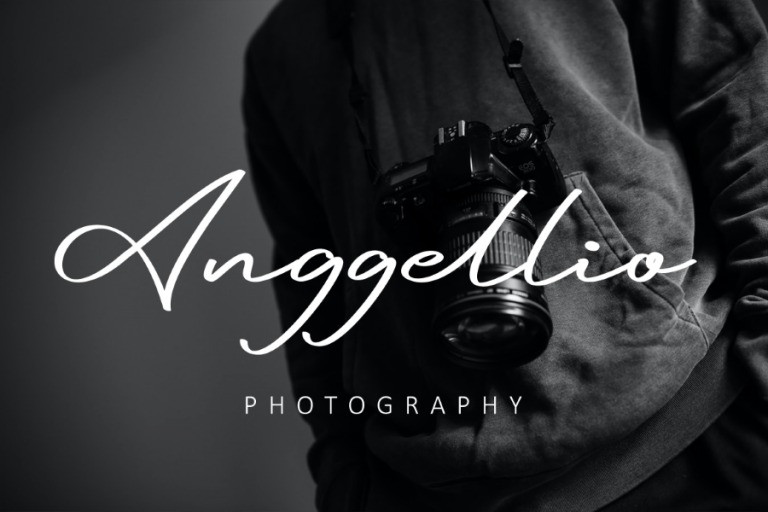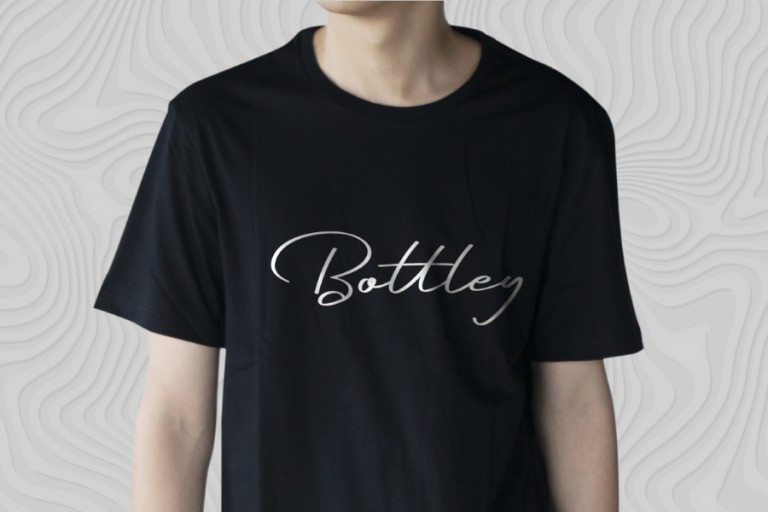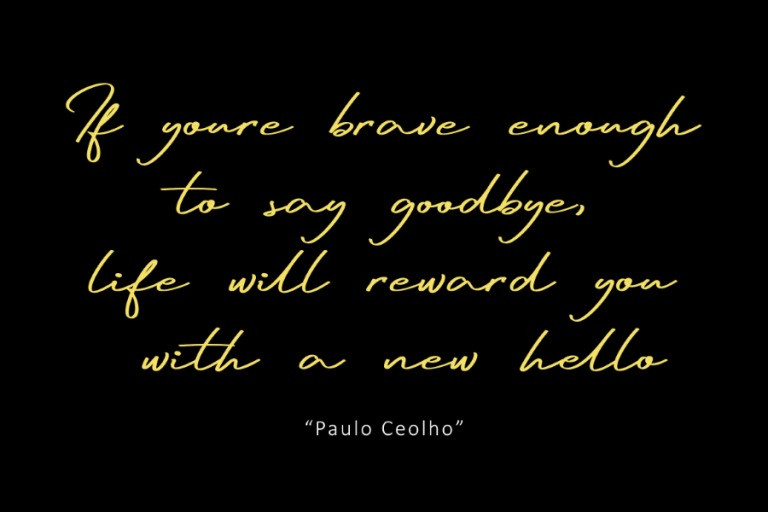
Conellista Signature Font
Conellista Signature Font is an elegant script font with a sophisticated signature style. Featuring unique character shapes, this font adds a refined and professional touch to your designs. Perfect for logos, branding, wedding invitations, and other creative projects, Conellista enhances your visual presentation with its graceful, flowing letterforms.